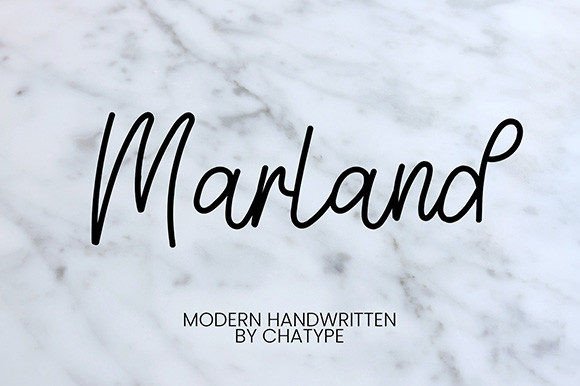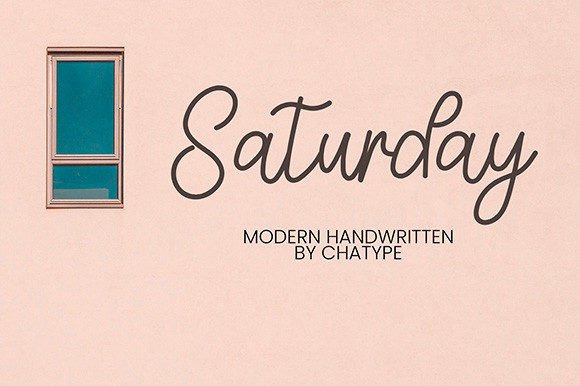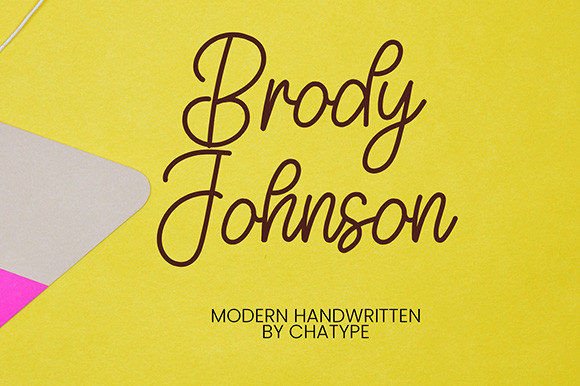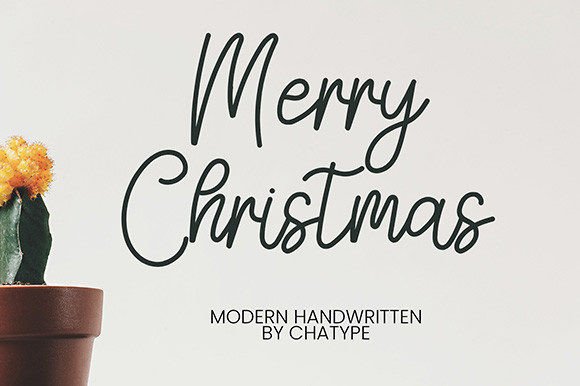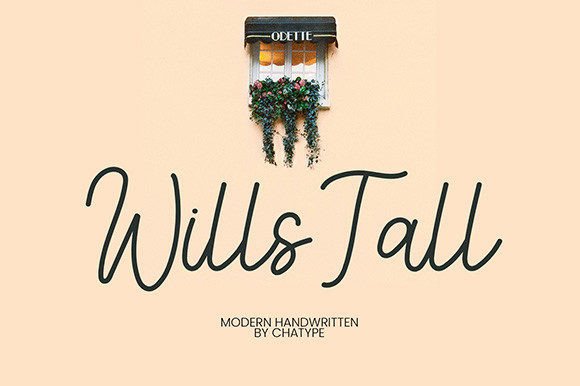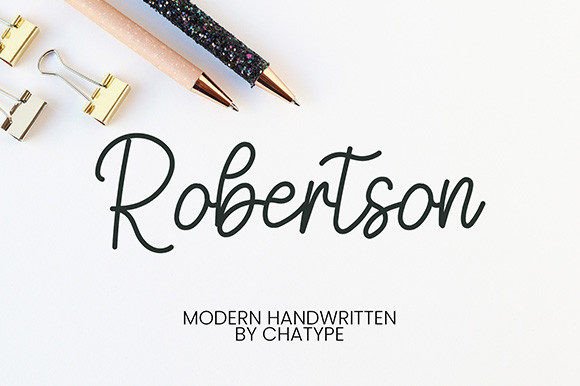
Marland Font
A Delicate and Elegant Handwritten Typeface
Marland Font is a delicate, elegant, and flowing handwritten typeface designed to add a sophisticated and personalized touch to your designs. With its beautifully balanced characters and graceful strokes, this font brings a timeless elegance to any project. Whether you’re working on invitations, logos, branding, or digital content, the Marland Font provides the perfect blend of creativity and legibility, ensuring that your designs stand out with style and grace.
Perfect for Wedding Invitations and Special Occasions
For wedding invitations and special occasion stationery, the Marland Font is an excellent choice. Whether you’re designing RSVP cards, thank-you notes, or event programs, this font adds a romantic and timeless feel to your designs. Its elegant and flowing strokes create a sense of refinement, making it perfect for weddings, anniversaries, or any other memorable occasion. The Marland Font ensures your event materials leave a lasting impression with their personalized and sophisticated appeal.
Ideal for Branding and Logos
For branding and logos, the Marland Font brings a sense of creativity and class to your business identity. Whether you’re designing a luxury brand logo, a personal brand, or corporate materials, this font adds a unique and artistic touch that makes your brand stand out. Its elegant handwritten design ensures your logo feels memorable and approachable while maintaining a professional and high-end appearance. The Marland Font is perfect for businesses in fashion, beauty, or lifestyle industries, where a refined and distinctive brand identity is key.
Great for Social Media and Digital Content
For social media posts and digital content, the Marland Font adds an elegant and charming touch to your graphics. Whether you’re creating Instagram posts, Pinterest pins, or Facebook ads, this font ensures your content looks stylish and engaging. Ideal for quote graphics, product promotions, or event announcements, the Marland Font helps your posts capture attention and resonate with your audience. Its personalized and flowing design ensures that your digital content feels elevated and approachable.
Perfect for Product Packaging and Labels
For product packaging and labels, the Marland Font provides a luxurious and refined feel that is perfect for high-end products. Whether you’re designing product labels, gift packaging, or seasonal items, this font adds a personalized touch that makes your product designs stand out. Its delicate and flowing strokes ensure that your packaging looks sophisticated and premium, making it ideal for artisan goods, fashion products, and luxury items. The Marland Font gives your product designs an elegant, timeless look.
Versatile, Legible, and Elegant
Despite its delicate handwritten design, the Marland Font remains legible and easy to use. The well-spaced characters and balanced strokes ensure your text is clear and readable, even in smaller sizes or for longer passages. Whether you’re using it for headlines, captions, or body text, this font strikes the perfect balance between creativity and readability, making it suitable for a wide range of design applications, from print to digital media.
Add Elegance and Personalization to Your Designs with Marland Font
If you’re looking for a delicate, elegant handwritten font that adds a personalized and refined touch to your designs, the Marland Font is the perfect choice. Whether you’re designing wedding invitations, logos, social media posts, or product packaging, this font will help you create memorable, sophisticated designs that stand out. Let the Marland Font elevate your creative projects and leave a lasting impression with its timeless and elegant appeal.